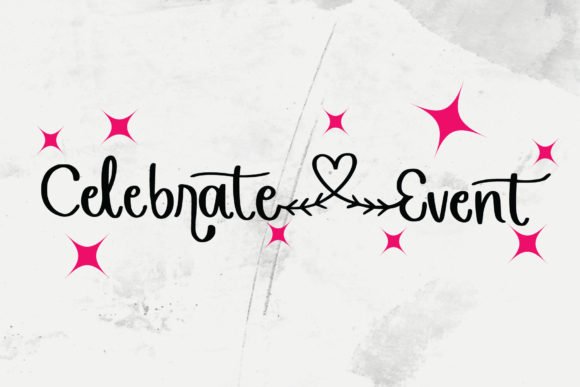
Introduction to Celebrate Event Font
Celebrate Event is a sweet, all round and flexible handwritten font.
Warm, romantic and jolly, this font will turn each of your project ideas into real works of art Have fun with this beautiful font and explore its endless variations.
Key Features of Celebrate Event Font
Why Choose Celebrate Event Font?
Celebrate Event Font offers exceptional quality and versatility, making it a valuable addition to your design toolkit. Whether you’re creating for personal projects or commercial use, Celebrate Event Font delivers professional results.